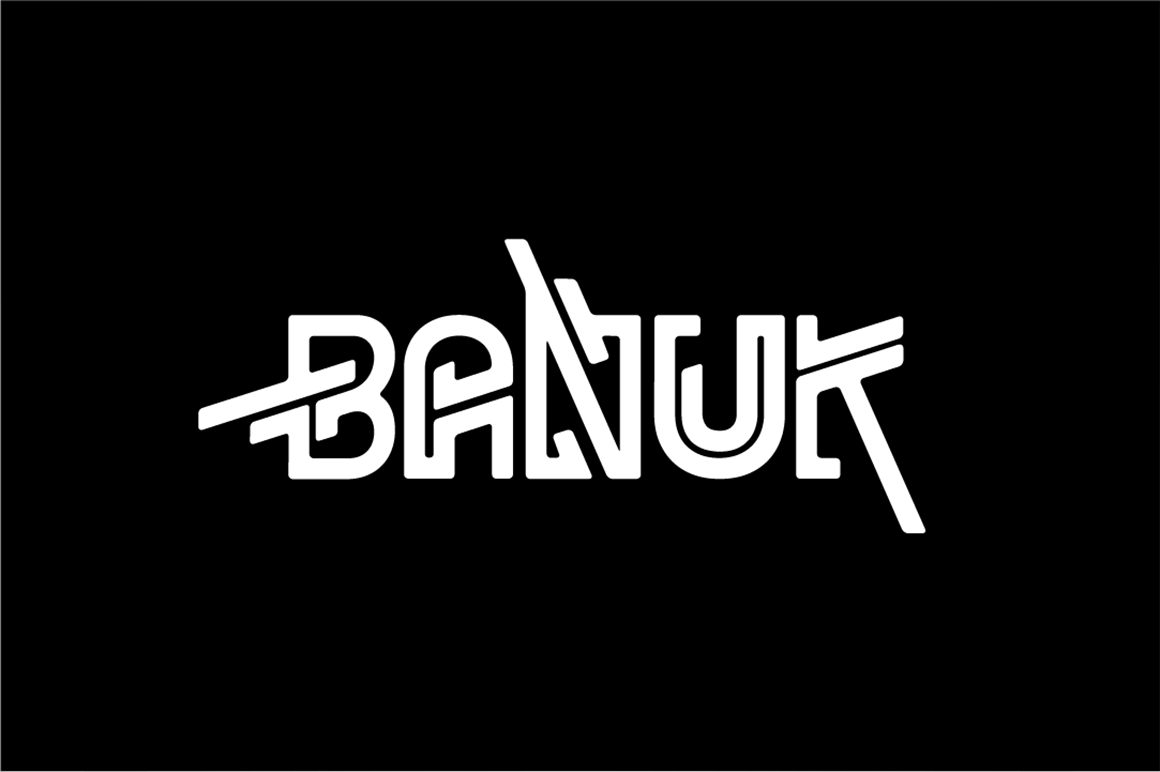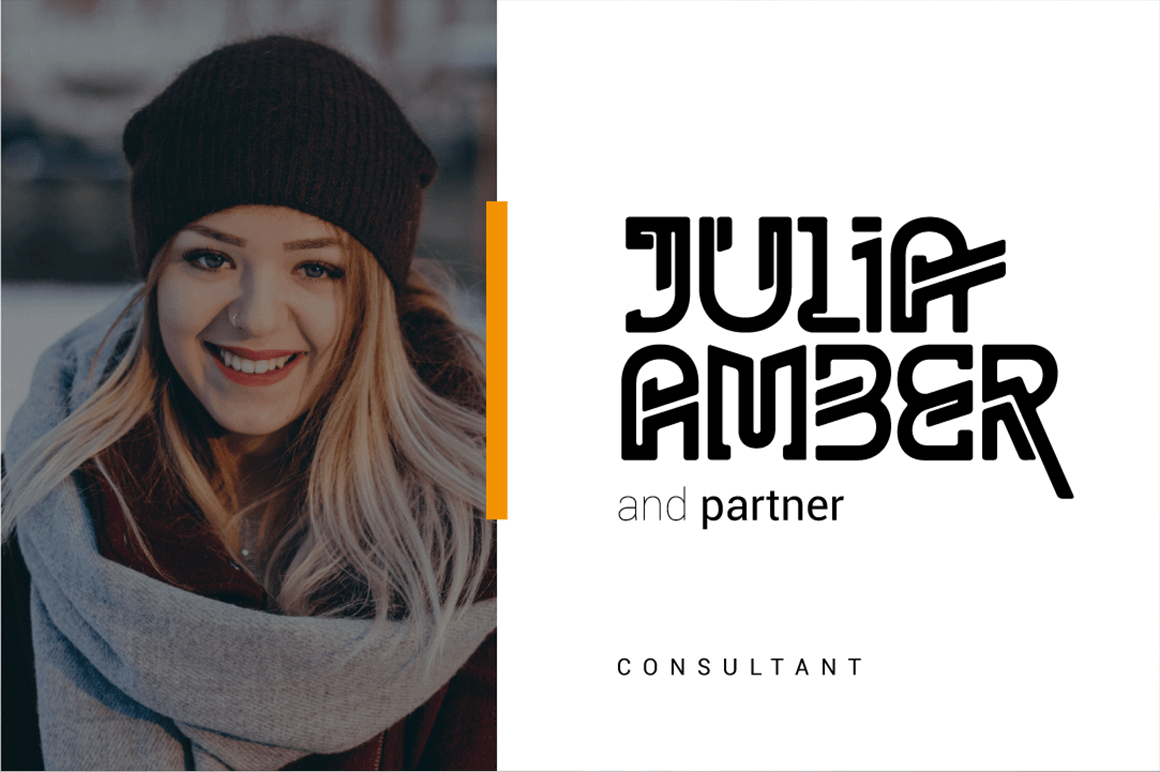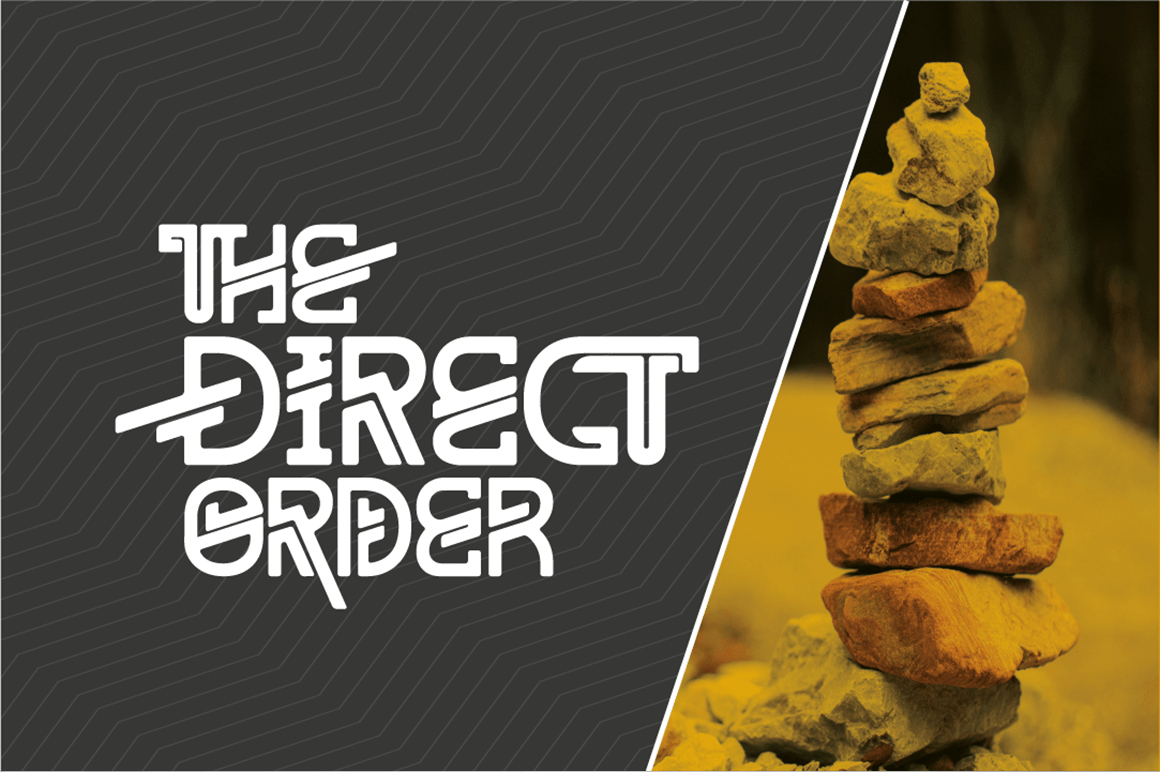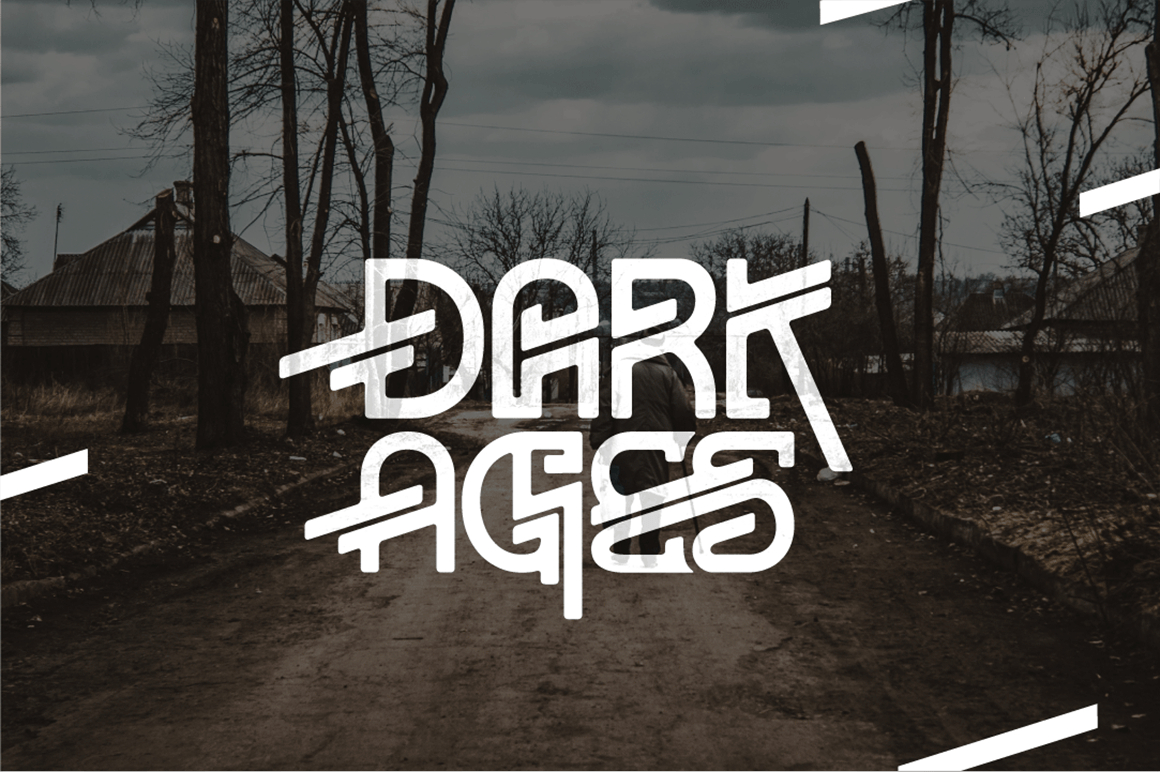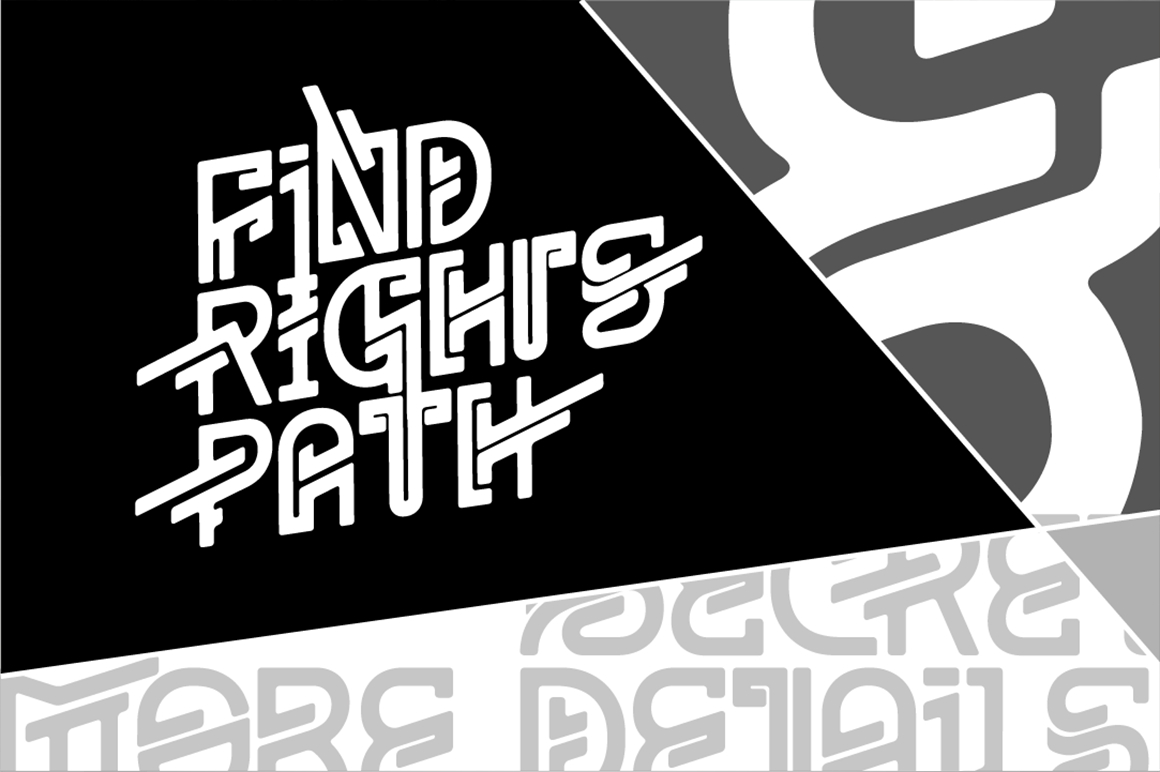
About Banuk Font
Banuk is a brand new techno font designed with a slanted line accent, the font is rounded edges and little imminent space between fonts. Banuk is a perfectly used font in any project such as logo font, flyer header, name card, invitational header, movie poster, website header, and much more.